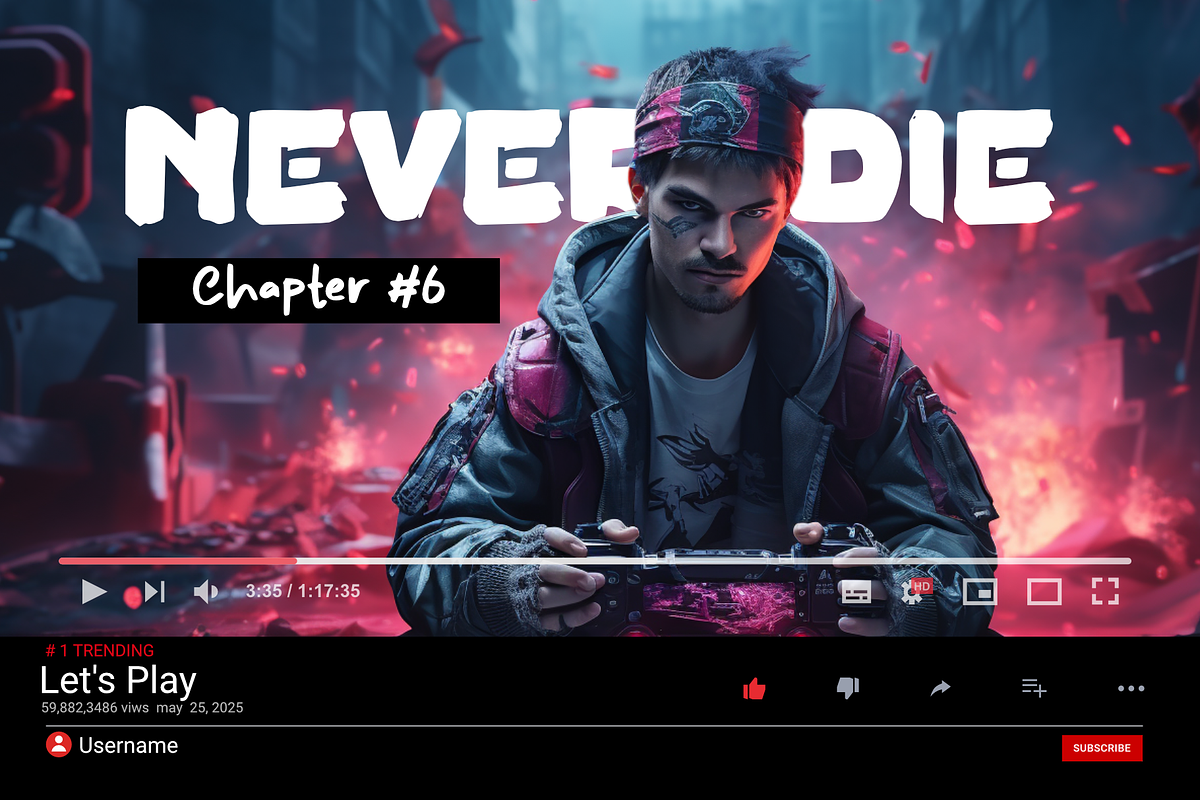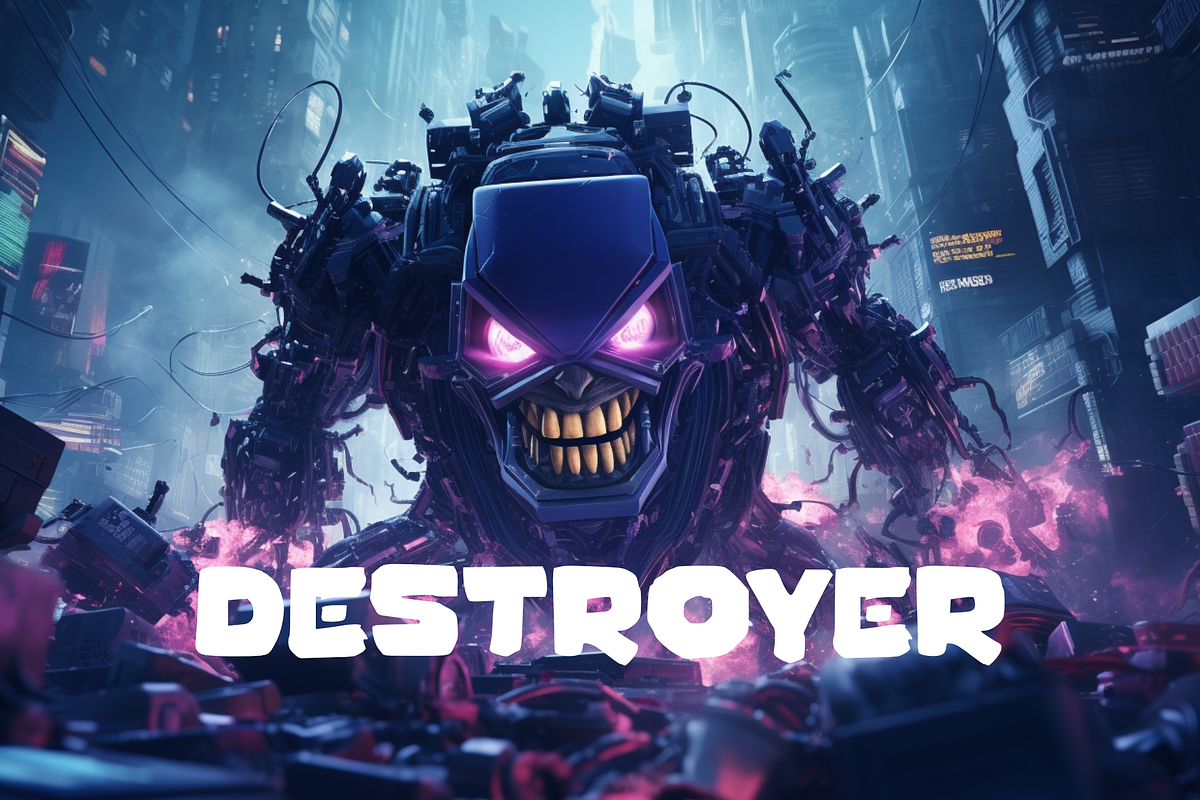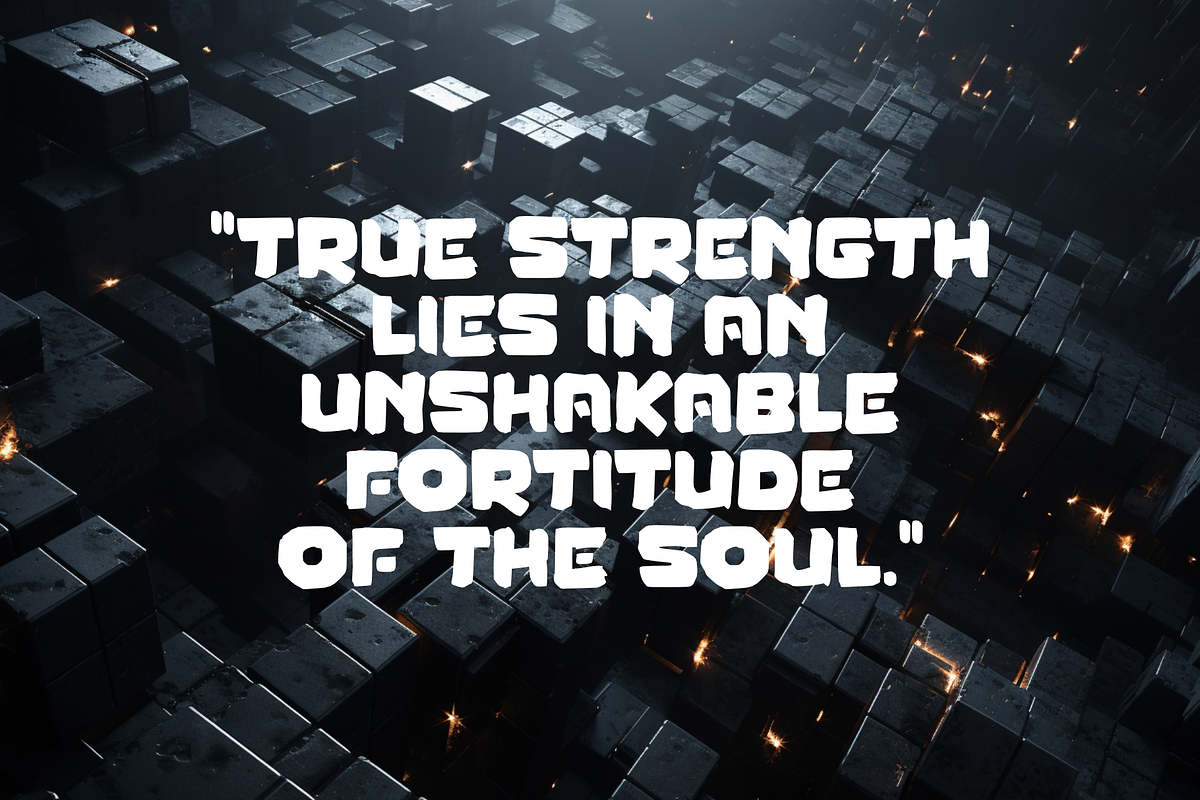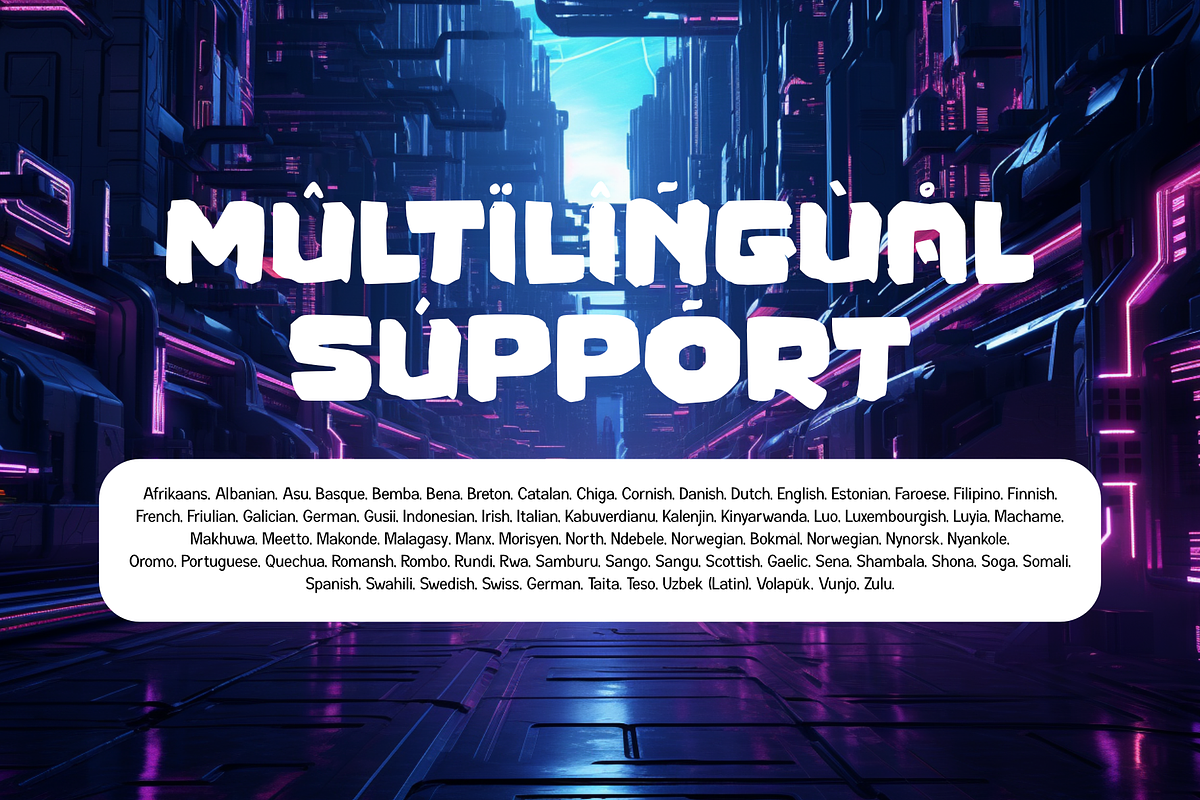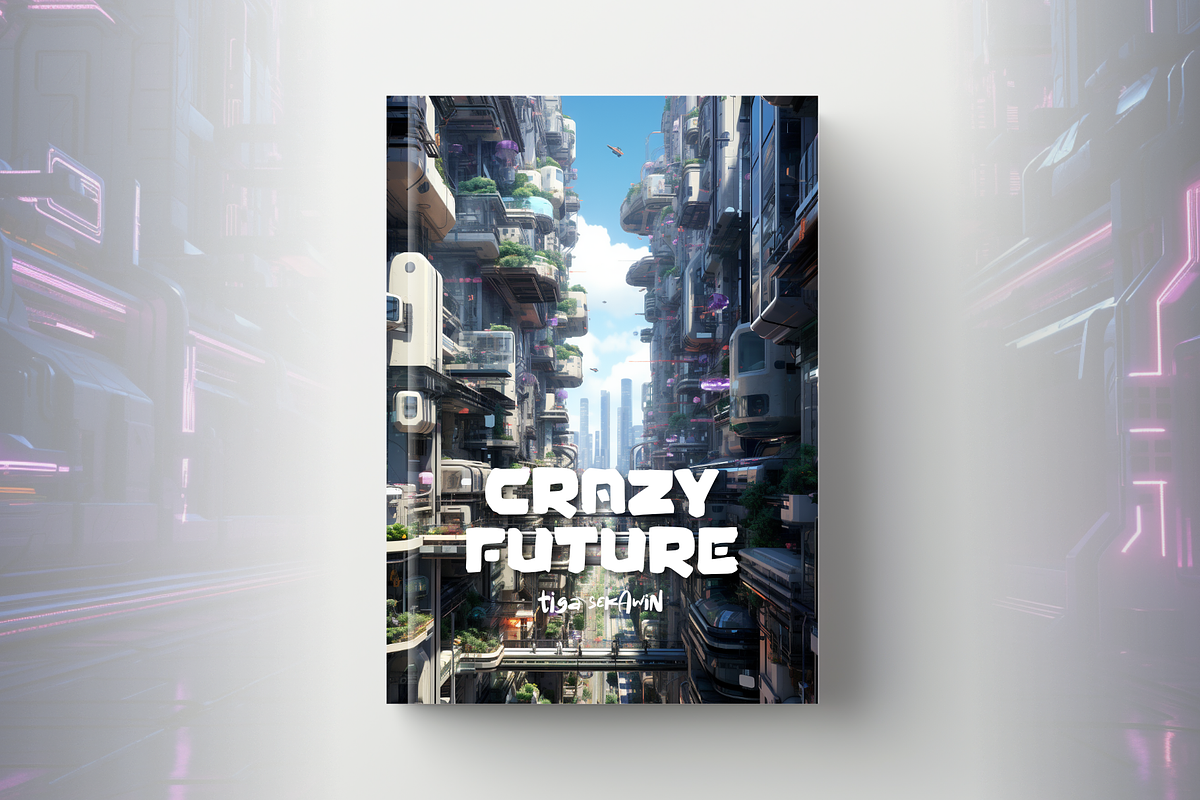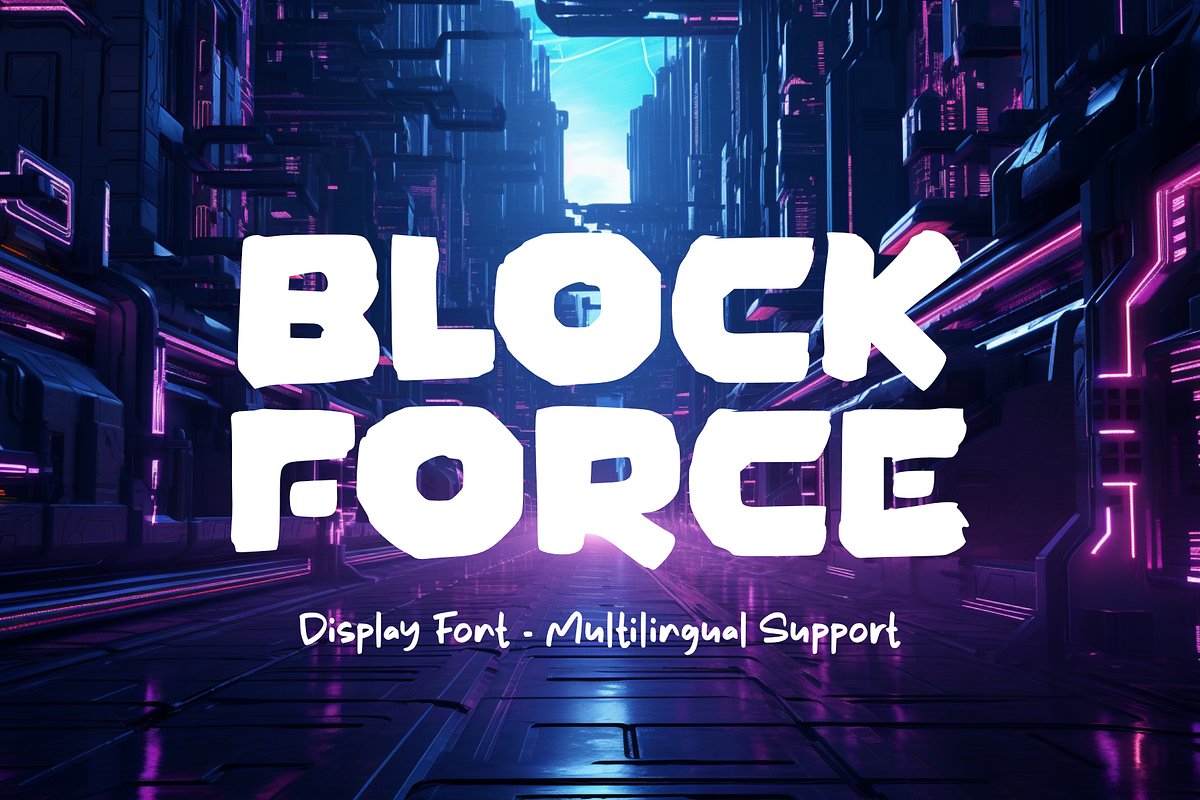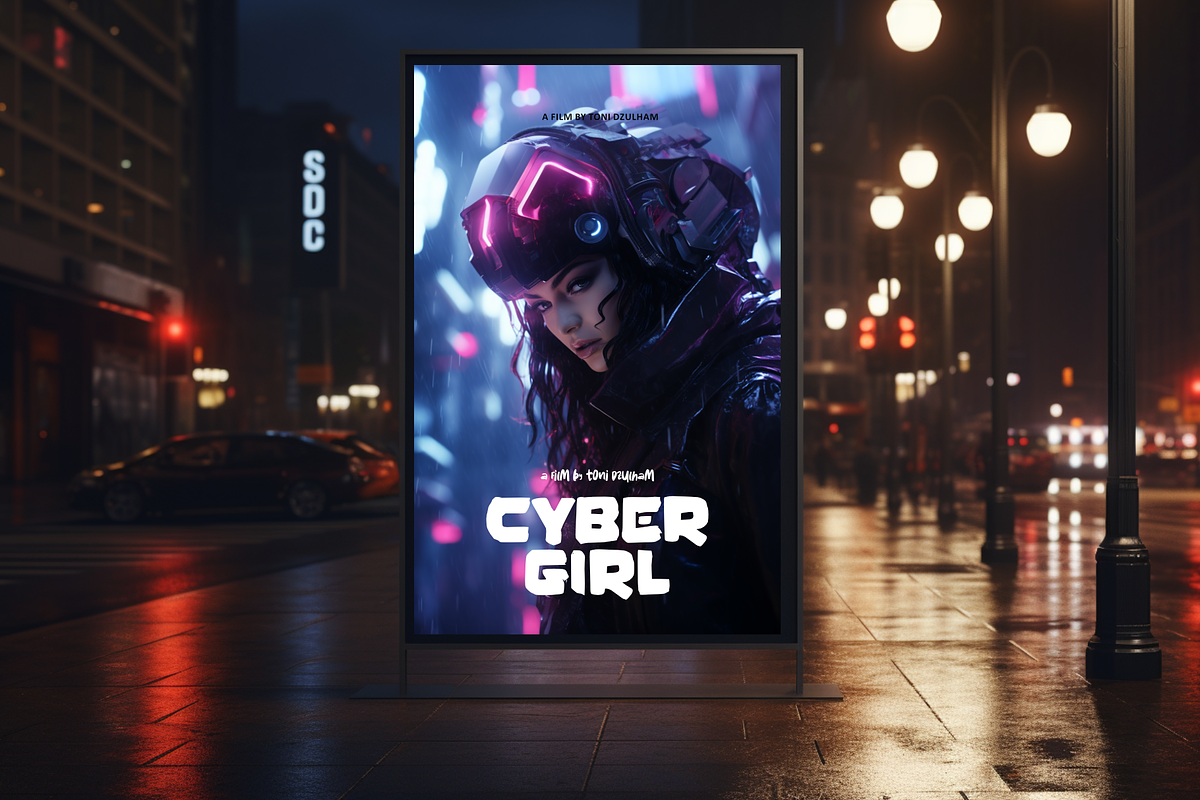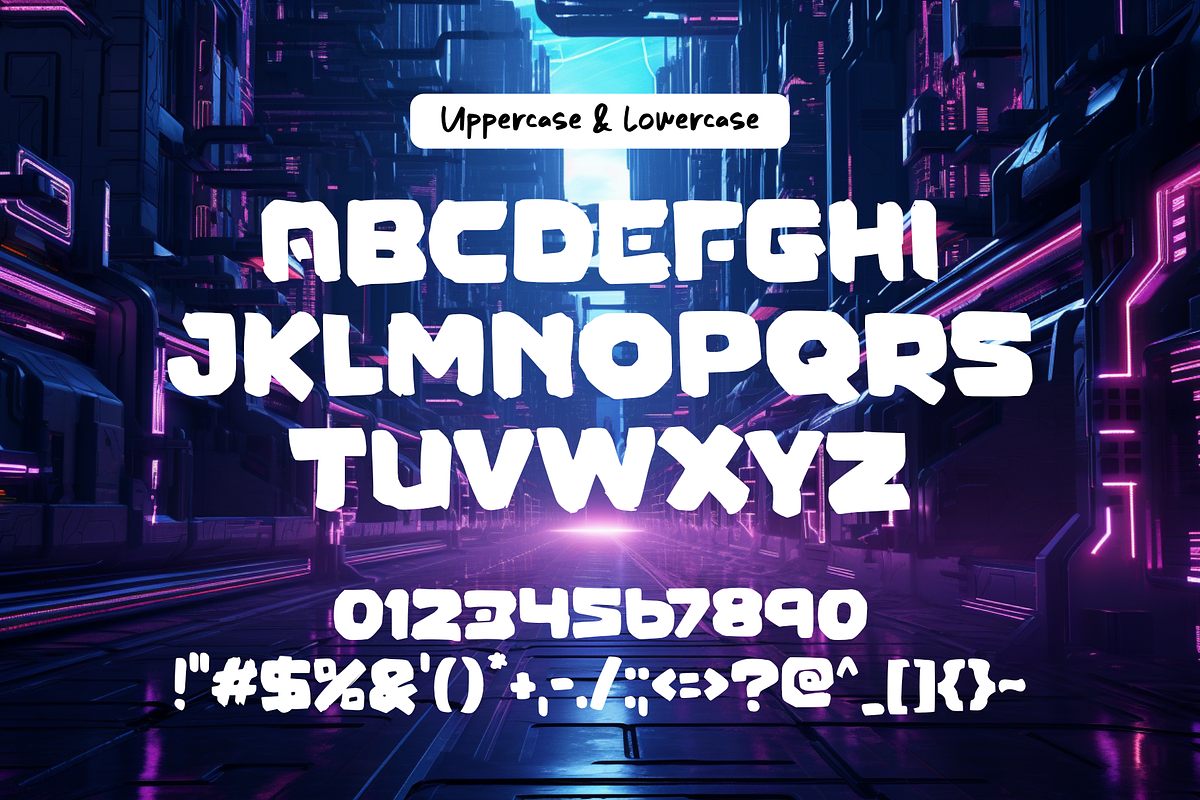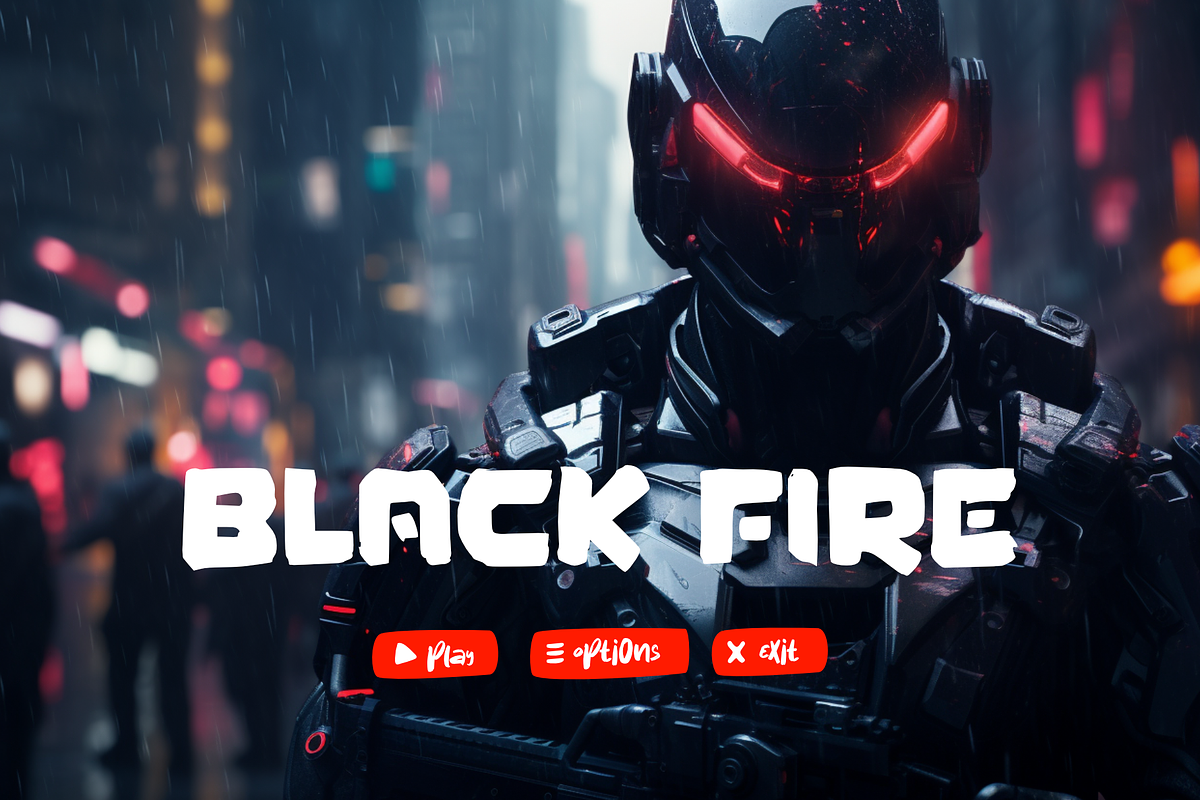
Block Force - Display
Block Force is a font with a bold and stout style. Each letter appears rugged with haphazardly placed lines, creating an impression of randomness and untidiness. The font consists only of uppercase letters, without any lowercase variants.
Block Force is a simple and straightforward font. With its uncomplicated design, it emphasizes strength and firmness in a straightforward manner. The letters are composed of thick lines without any additional embellishments, conveying a sense of power and determination in your designs.
Despite its simplicity, Block Force remains easily readable and clear. With distinct letter shapes, this font is suitable for designs that require a strong and striking impact. It is often used for large titles, posters, or designs that need a rough and bold touch.
Overall, Block Force is a font that is thick, stout, and untidy. With its simple appearance and exclusive use of uppercase letters, this font immediately conveys a sense of strength and assertiveness.
- Uppercase only
- Multilingual Accent